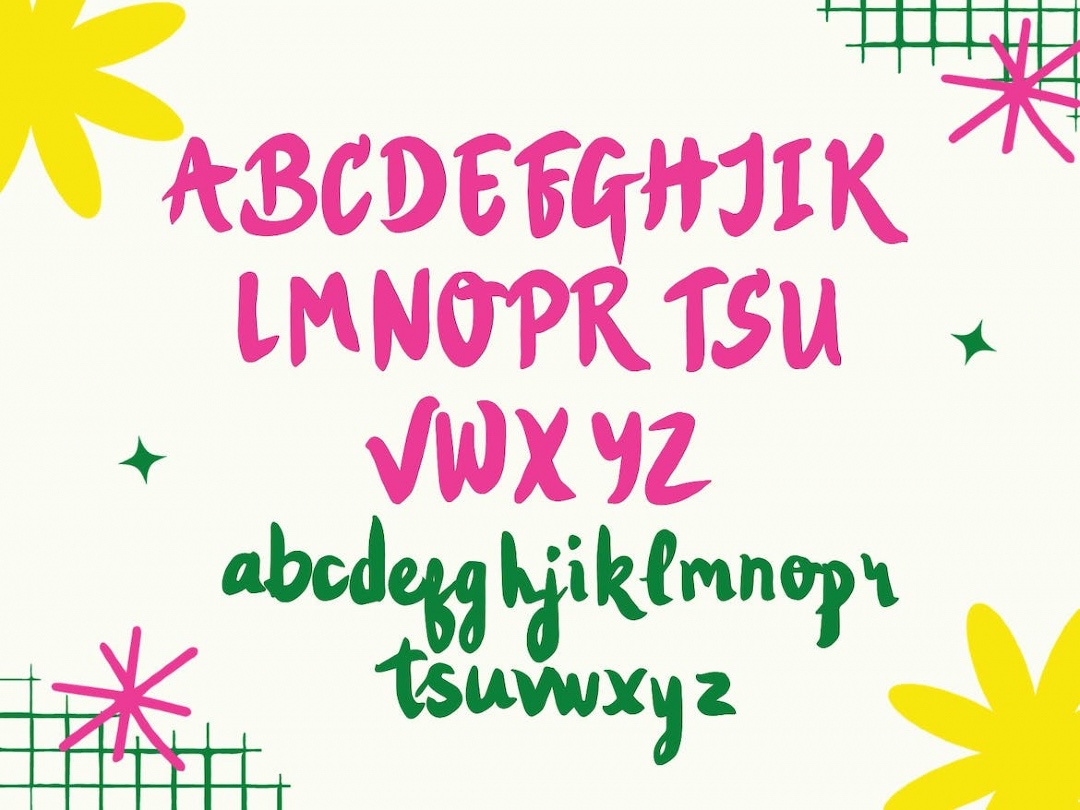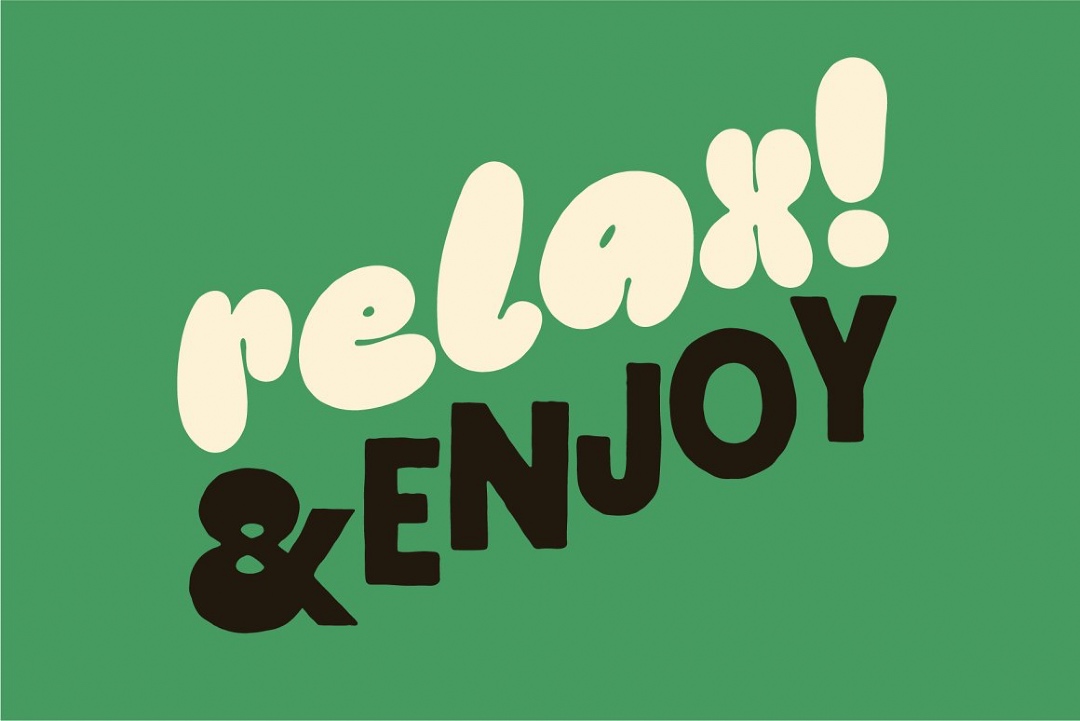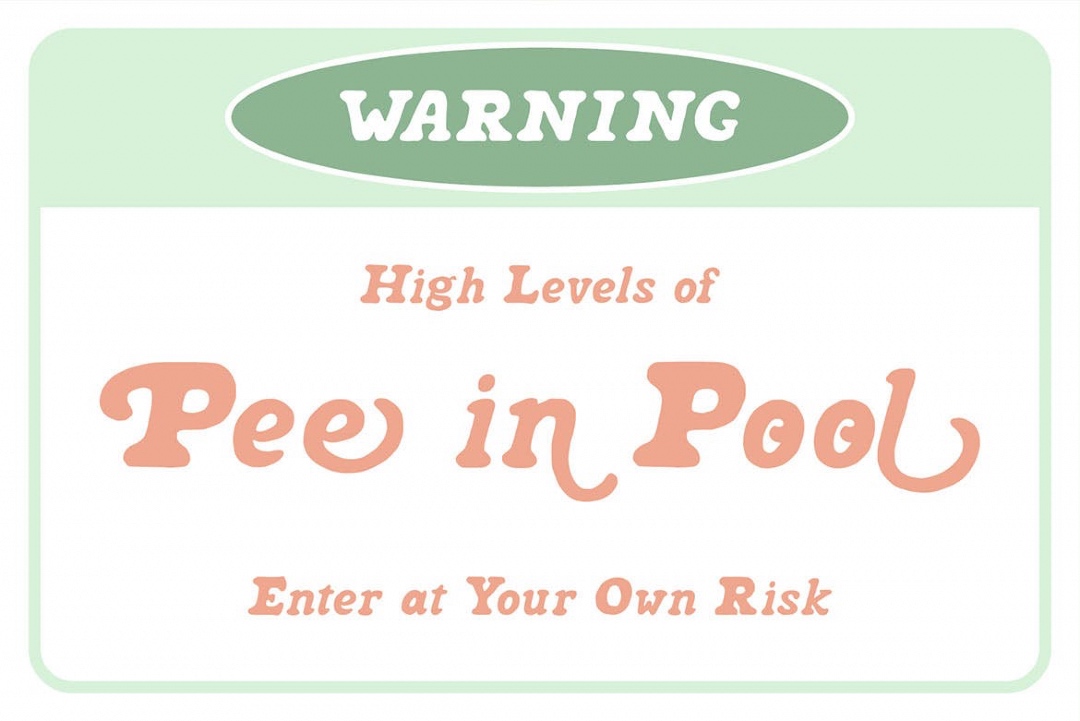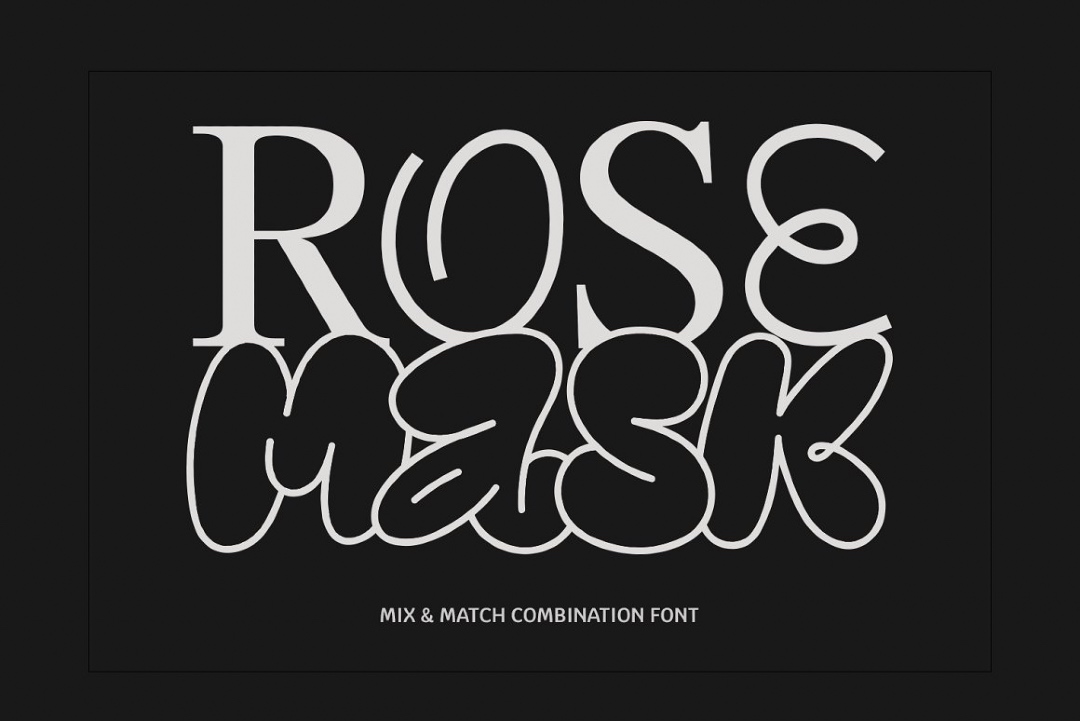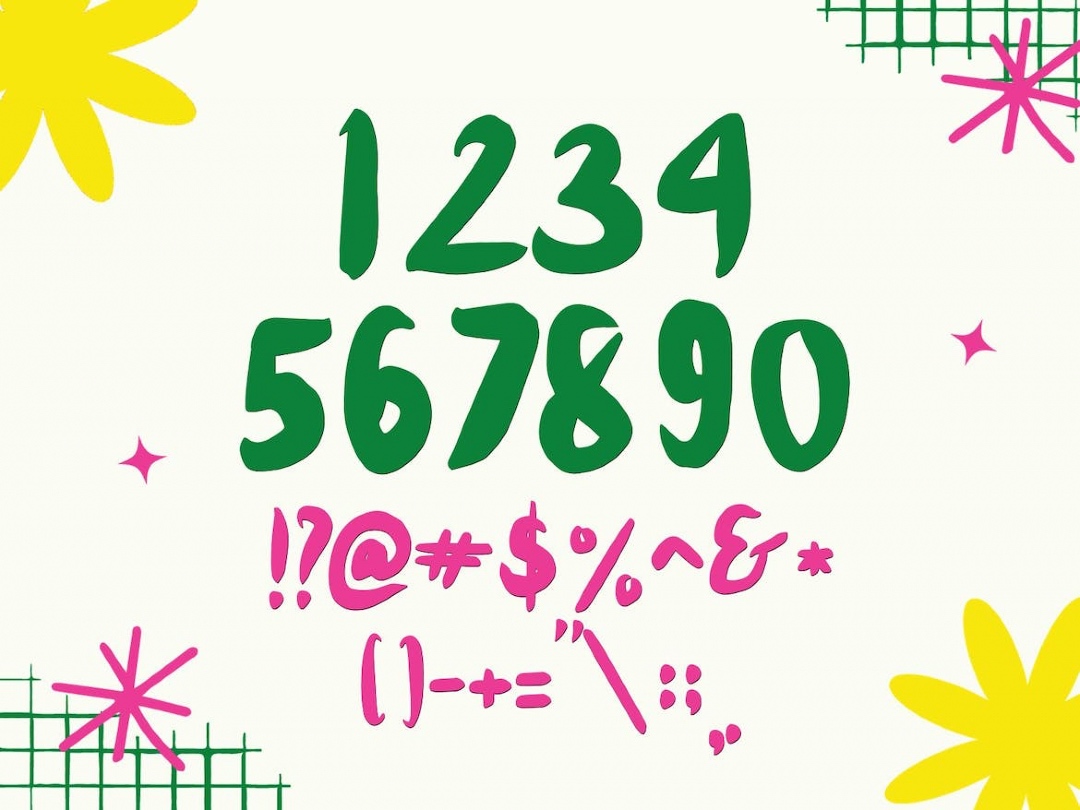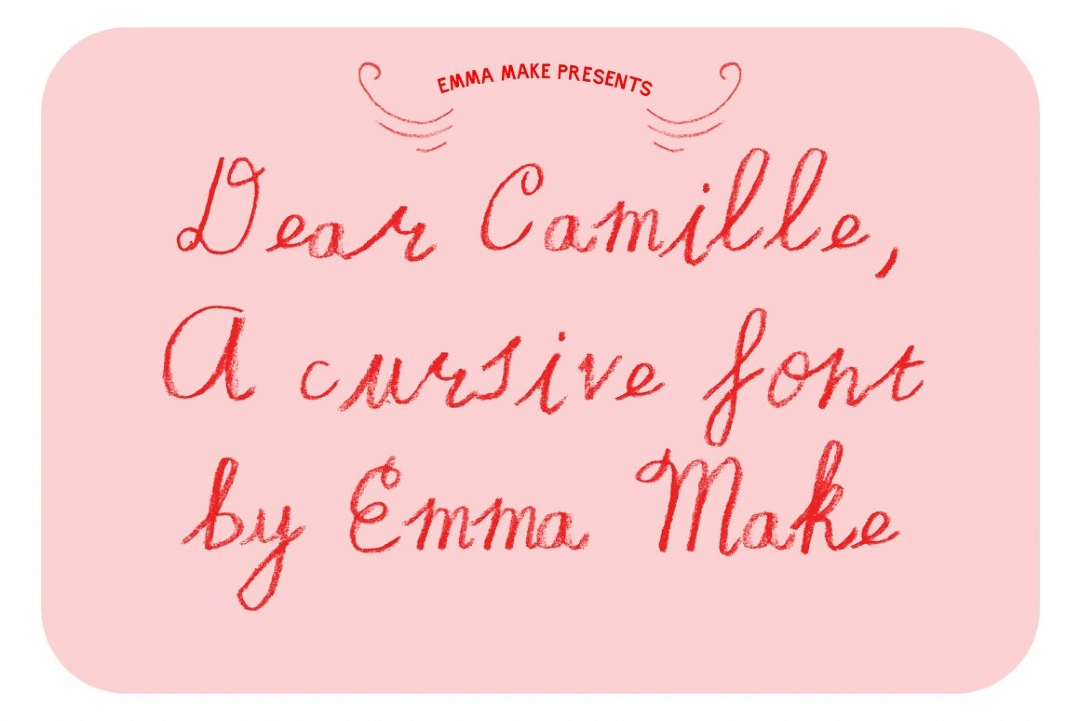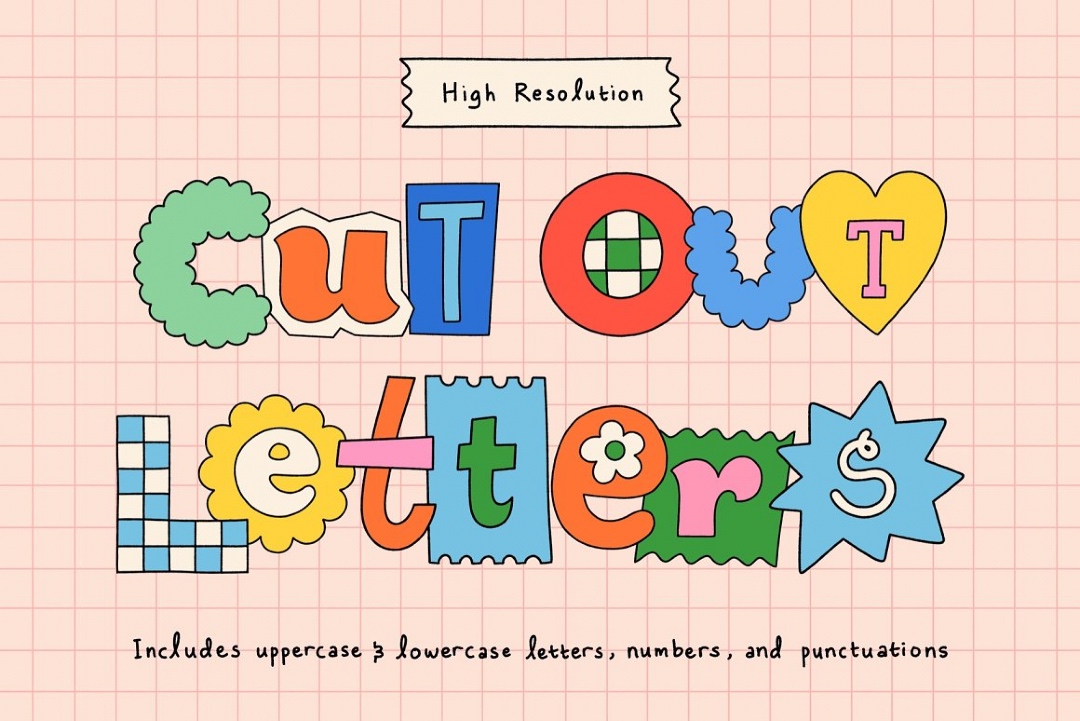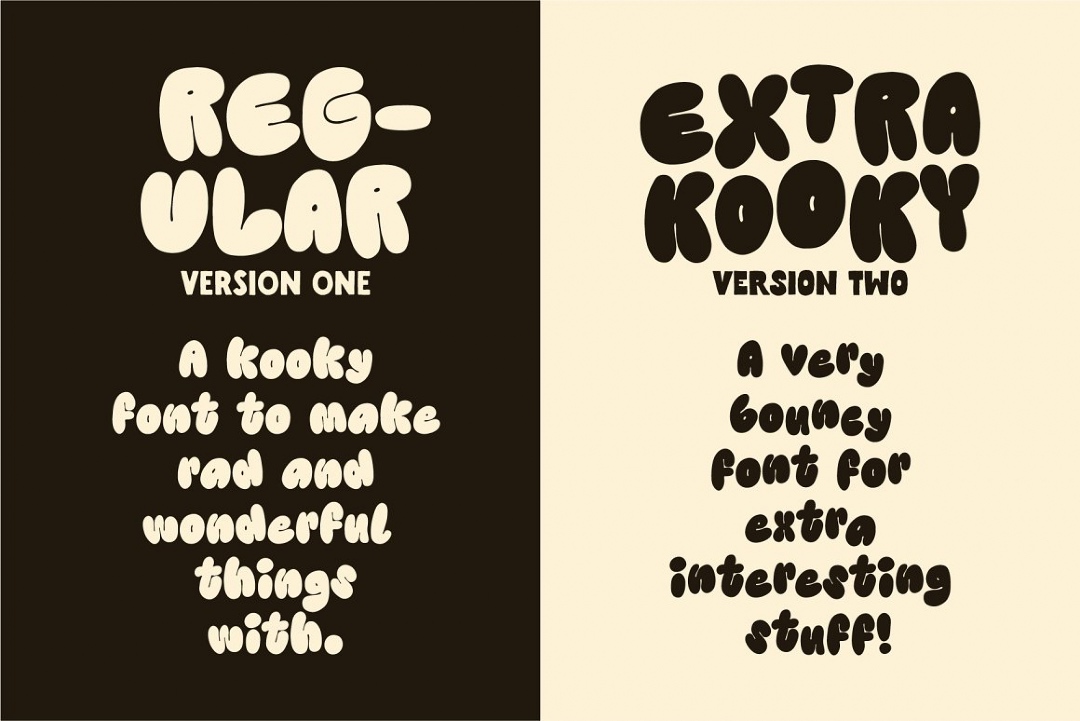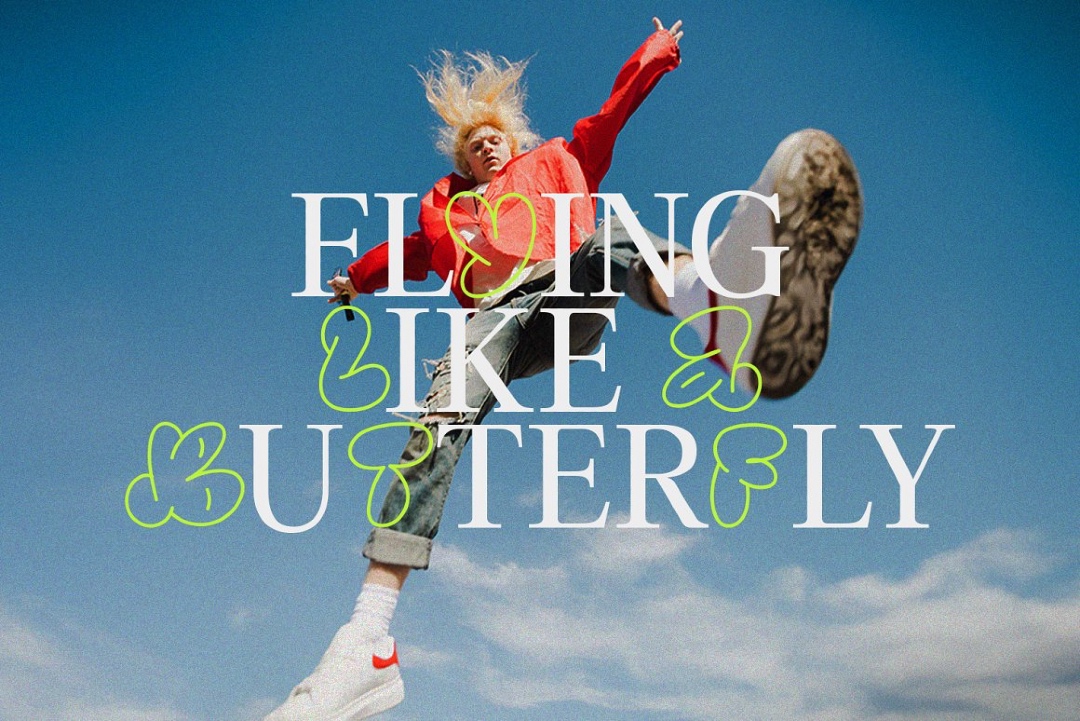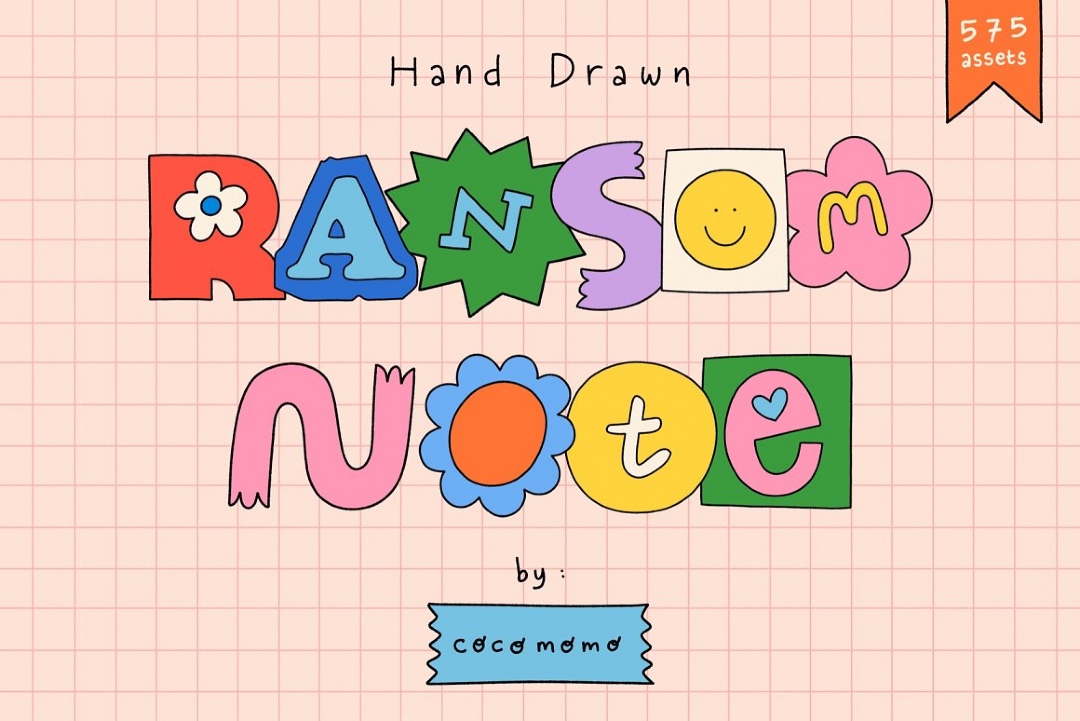
17 Fun Hand-Drawn Fonts To Express Your Personality In November 2023
Hand-drawn fonts, with their unique imperfections and personal flair, bring a level of warmth and originality that’s well-needed in this cold, digital world. They’re versatile, elevating everything from whimsical children’s book covers to edgy music festival posters.
Moreover, handwritten typefaces stand out for their human element. What better way to close in on the year than with a personal, handcrafted flair?
Below, we’ve rounded up over a dozen illustrative fonts that cater to a variety of moods and themes—from playful block letters to elegant scripts. Try mixing and matching them, and see where they take your projects.
#1 RoseMask
This three-in-one combination font offers unprecedented versatility. With its mix of elegant serif, playful monoline, and bubbly gravity styles, RoseMask encourages heavy experimentation and is perfect for diverse design projects. No wrong choices here.
#2 Ransom Note Cut Out Letters
Contrary to its edgy name, this font bundle is delightfully adorable. Consisting of 575 assets—including colorful letters, numbers, and symbols—it’s well-suited to add a playful touch to any project.
#3 Kingbolt
A charming blast from the past, Kingbolt is a versatile, decorative retro font that will drum up nostalgia in logos, packaging, and more.
#4 Dear Camille
Embodying the warmth of a handwritten love letter, Dear Camille is a cursive font that’s perfect for intimate and heartfelt designs.
#5 Gares
A modern display sans font that embodies simplicity and high contrast, Gares Modern Sans fits seamlessly into high-end fashion and cultural environments.
#6 Kooky Cloud!
Uniquely bold and playful, Kooky Cloud! is a bubbly choice reminiscent of clouds that will add a whimsical touch to any design under the sun (see what we did there?).
This passionate typeface, hand-drawn with an italic flair, is a versatile choice for branding, logos, posters, and merchandise. Its varied letter styles add a touch of elegance and uniqueness, making it ideal for projects that require a sophisticated yet personal touch.
#8 Graphy
Fusing the energetic spirit of street art with Y2K culture, Graphy is a unique bubble font inspired by graffiti. It offers three styles: filled, anti counter, and outline, making it perfect for logos, branding, and social media graphics. This font adds an urban, contemporary edge to your designs, embracing the creative fusion of graffiti and modern layout.
#9 Mondeur
The playful hand-drawn serif Mondeur is suitable for a variety of design projects, carrying a fun and whimsical touch.
#10 Happy Will
Resembling a dancing character, Happy Will embodies a modern, stylish, and contemporary vibe and will undeniably make your design work pop. It is well-suited for a range of projects, from fashion to books, showcasing your unique personality in every creation.
#11 Sunday Bloom
A modern headliner with a rustic flair, Sunday Bloom finds its calling in making logos, social media posts, and branding designs stand out.
#12 Karot
Karot stands out on its own while pairing well with sans or script styles alike, speaking volumes in every design.
#13 Hooey
A Y2K-inspired monoline handwritten font laced with texture and “goopy-ness,” Hooey brings character to your designs.
#14 Imperfect!